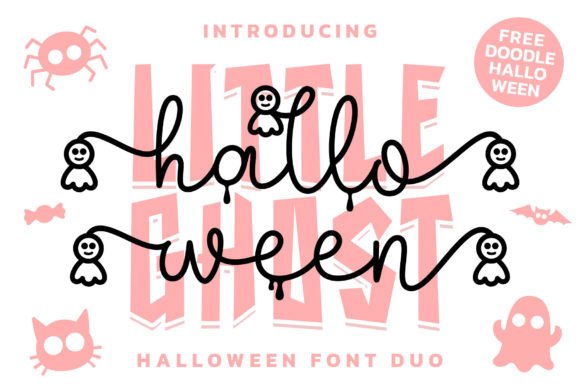
Looking for the perfect font to bring your Halloween designs to life? Look no further than Halloween Ghost Duo Font - the best font for a Halloween sign! Created by Hoperative Design, this font family is here to add a spooky and playful touch to your projects.
With its stylish script monoline and a captivating display font, Halloween Ghost is a font duo that stands out from the crowd. Whether you're designing invitations, banners, or party decorations, this font will instantly elevate your creations and make them eye-catching.
What sets Halloween Ghost apart is its fresh and unique style. It brings a sense of fun and excitement to your designs, making them more appealing to your audience. The playful nature of this font will resonate with both kids and adults, adding a touch of cuteness to your Halloween-themed projects.
One of the highlights of Halloween Ghost is its PUA encoding. This means that you can easily access all of the glyphs and swashes, allowing you to unleash your creativity and customize your designs with ease. Let your imagination run wild and create stunning Halloween graphics that will leave a lasting impression.
But why should you choose Halloween Ghost Duo Font? The answer lies in its ability to evoke emotions. This font will instantly transport your audience into the spooky and magical world of Halloween. It will create a sense of anticipation and excitement, making your designs irresistible to anyone who lays eyes on them.
Imagine your Halloween party invitations adorned with the whimsical letters of Halloween Ghost. Your guests will be captivated by the playful vibe and won't be able to resist attending your spooky soirée. With this font, you have the power to set the tone and create a memorable experience for everyone involved.
In summary, Halloween Ghost Duo Font is the ultimate choice for anyone looking to add a touch of charm and playfulness to their Halloween designs. Its stylish script monoline and captivating display font will make your creations stand out from the crowd. With its PUA encoding, you have the freedom to customize your designs with ease. Embrace the spirit of Halloween and let Halloween Ghost bring your imagination to life!